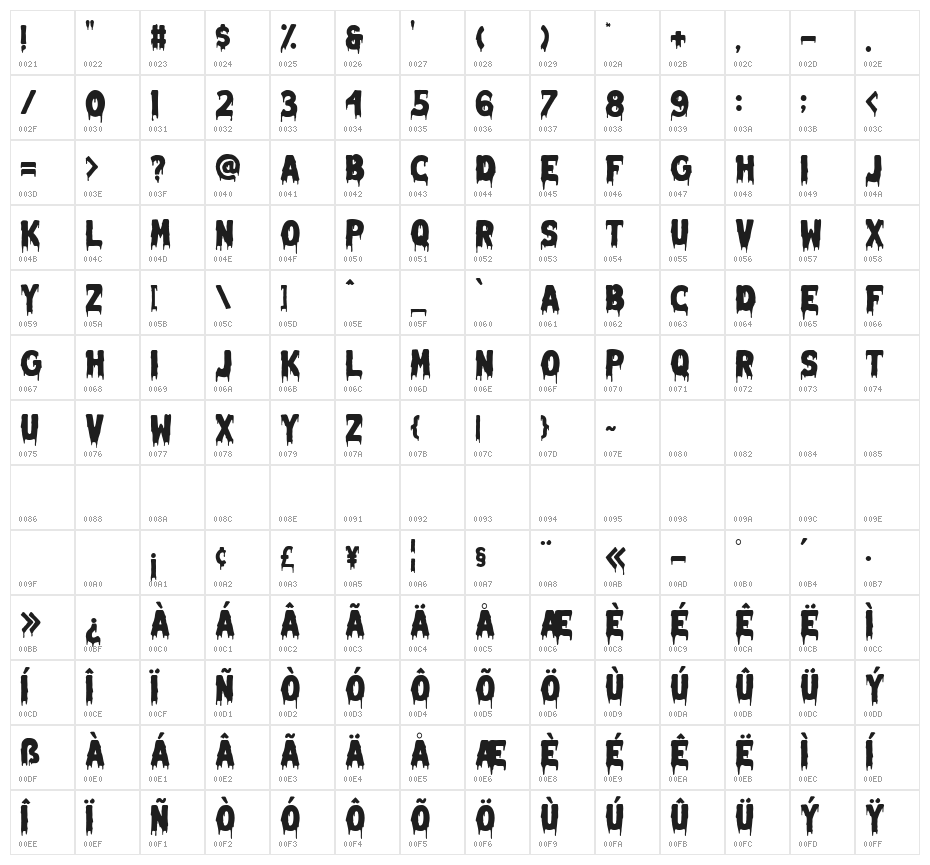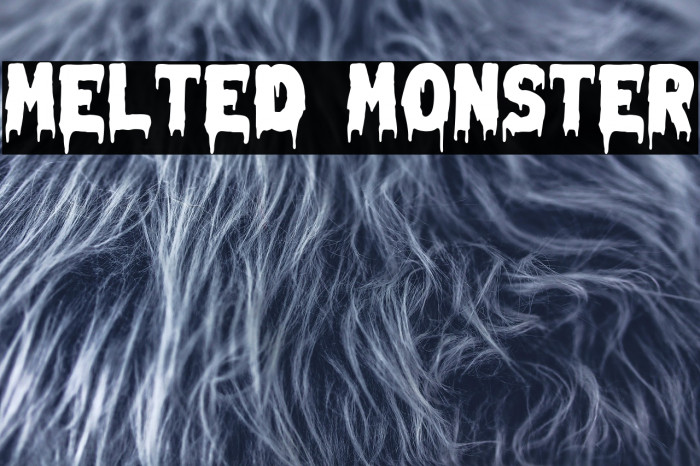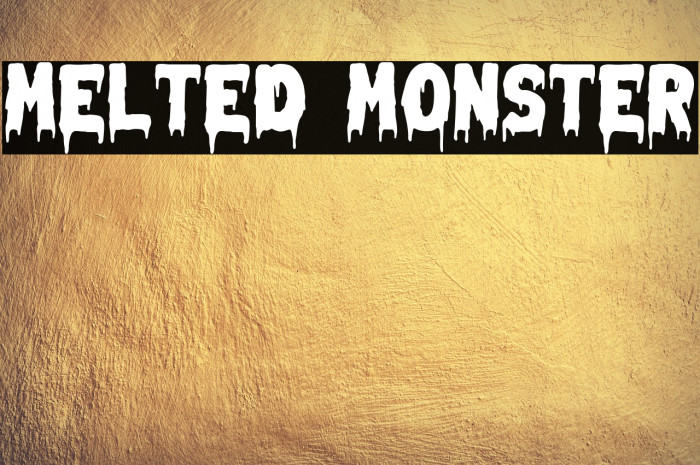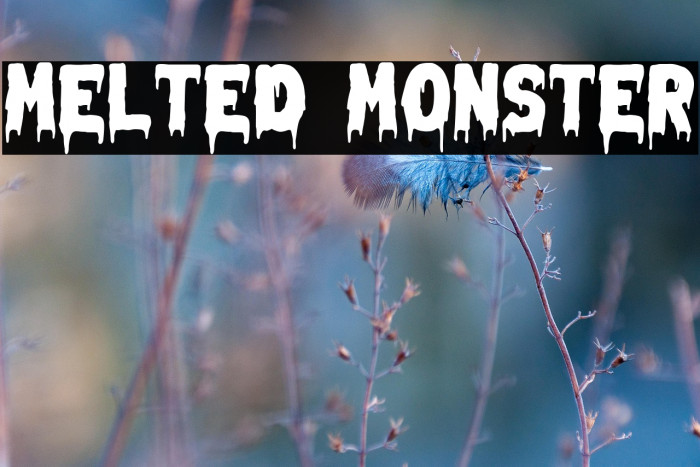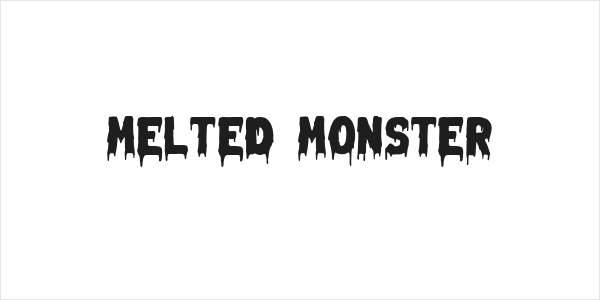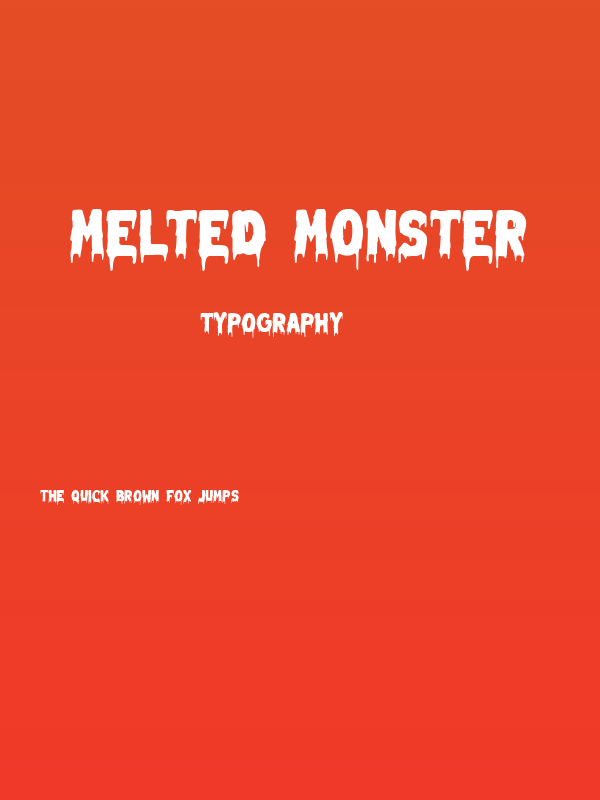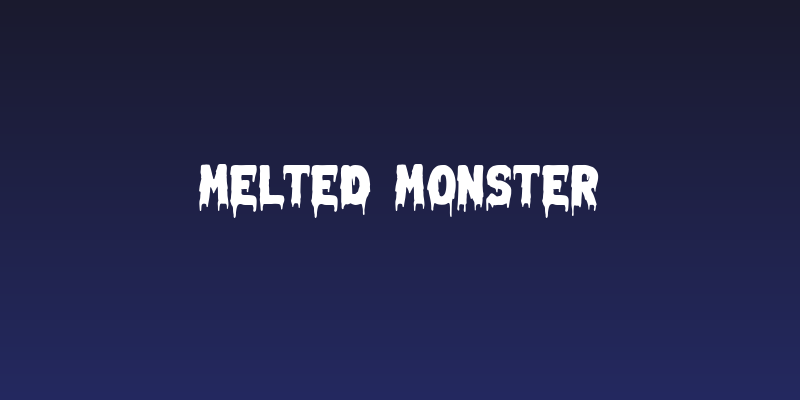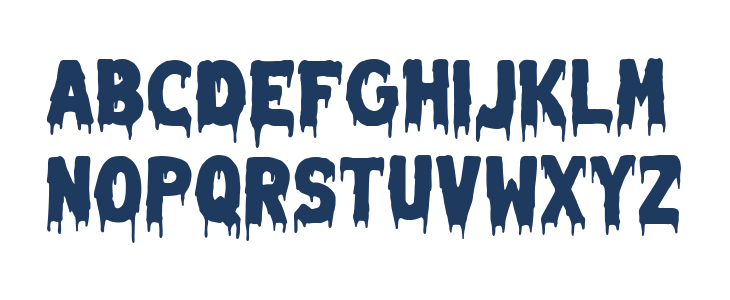
Melted Monster Font
| Рекомендуемые проекты | Ideal for Halloween posters, horror movie titles, themed party invitations, or any project needing a creepy, playful touch. |